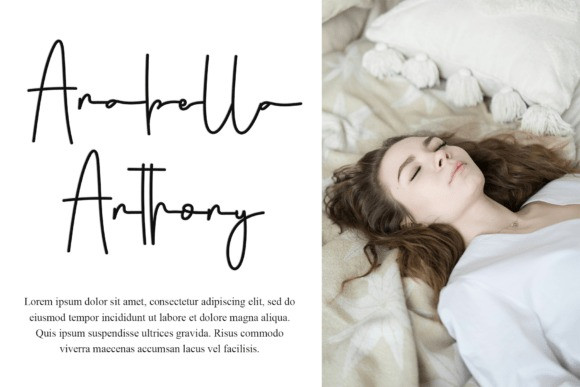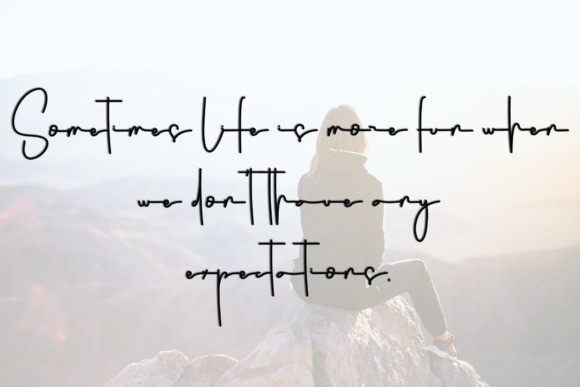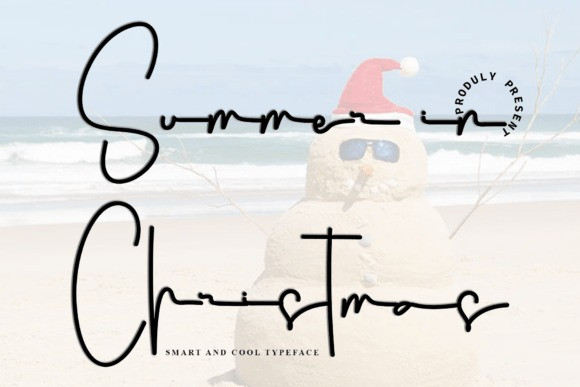
Summer In Christmas Font
Summer in Christmas Font is a charming handwritten typeface that playfully blends the carefree vibes of summer with the heartwarming magic of the holiday season. Designed with a free-spirited script and a cool, casual attitude, this font evokes both sun-kissed beaches and snow-dusted celebrations—making it an ideal choice for creative projects that require a fun, memorable, and slightly unconventional twist.
At its core, Summer in Christmas is a script typeface with modern calligraphy influences. The characters are marked by fluid strokes, a mix of playful irregularities, and intentional ligatures that bring an organic, handwritten personality. Its thin lines, rounded edges, and varied baseline heights create an approachable and effortlessly stylish rhythm—perfect for adding a human touch to digital or print design work.
What makes Summer in Christmas truly special is the balance it strikes between warmth and coolness. The font’s playful execution doesn’t take itself too seriously, yet maintains a refined elegance through clean execution and consistent stroke weights. It’s both sophisticated and carefree—much like building a sandman in a Santa hat on a tropical coast.